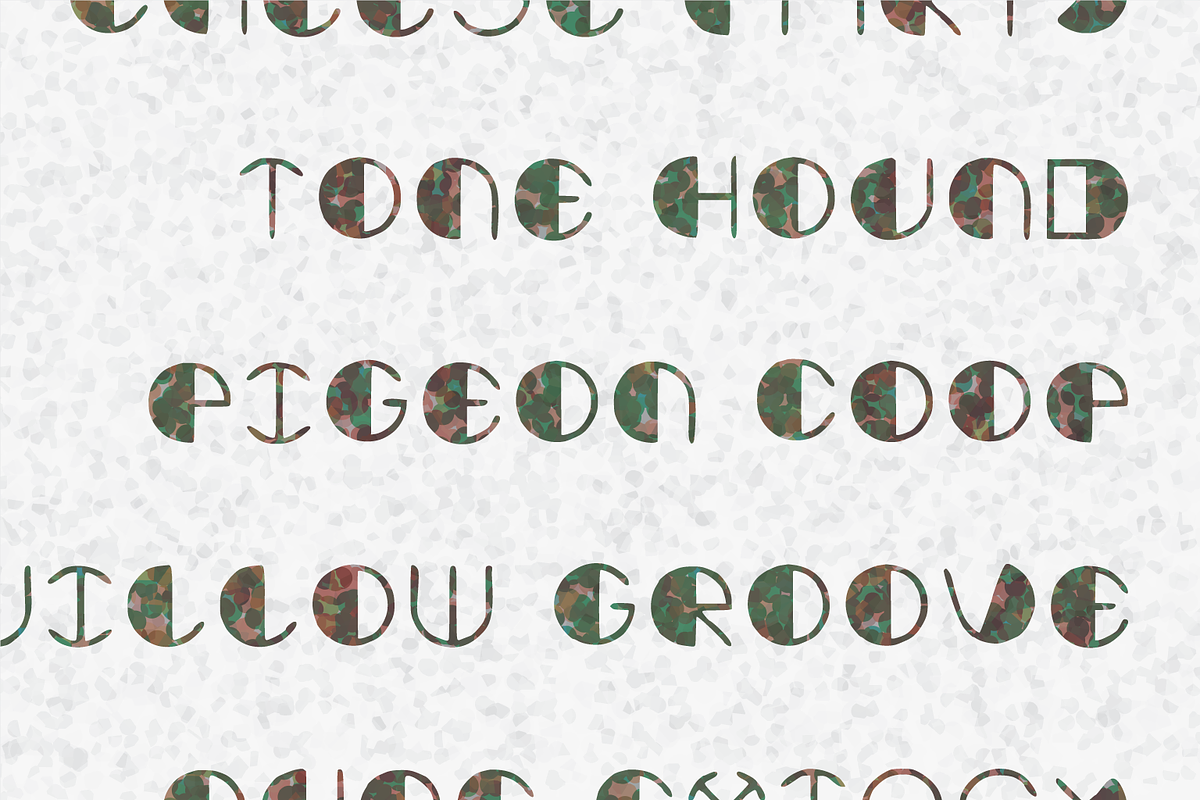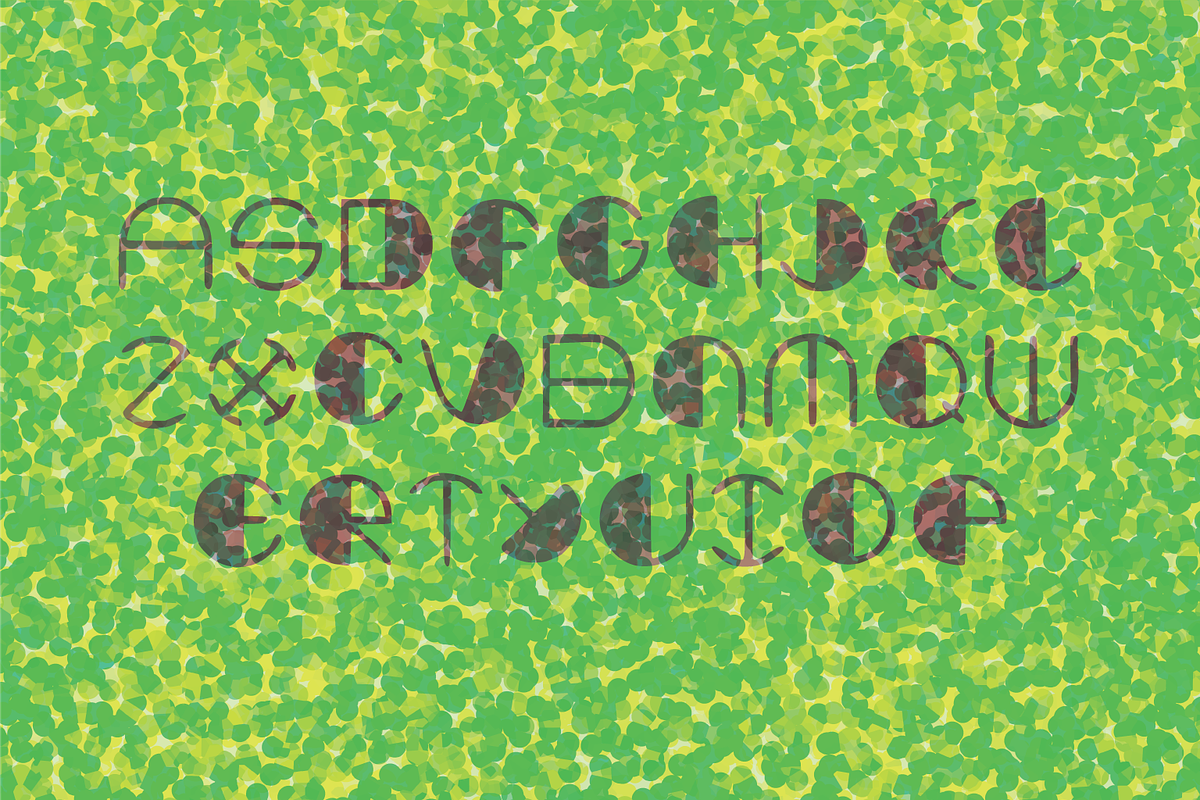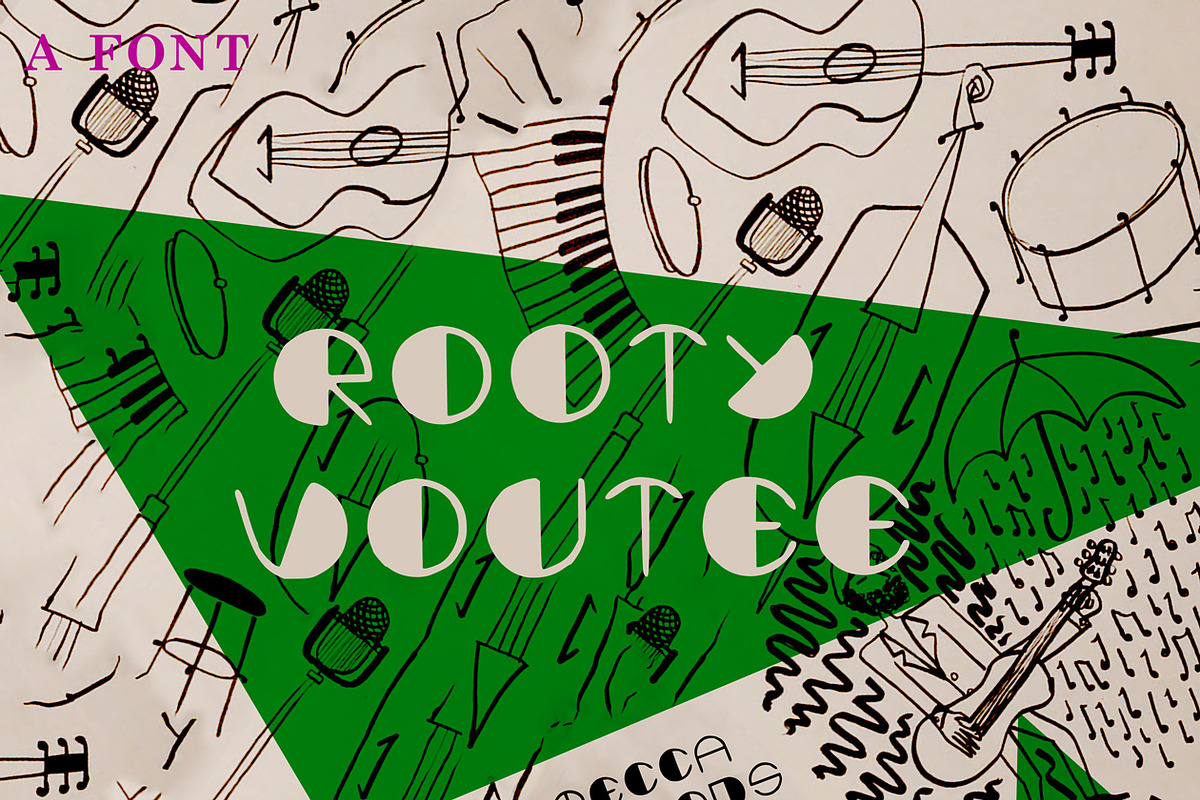
Rooty Voutee Novelty Jazz Font
Rooty Voutee Novelty Jazz Font by Ekloff is a font selected for branding, posters, packaging, typography.
Rooty Voutee Novelty Jazz Font by Ekloff fits naturally into Branding, posters, packaging, typography.